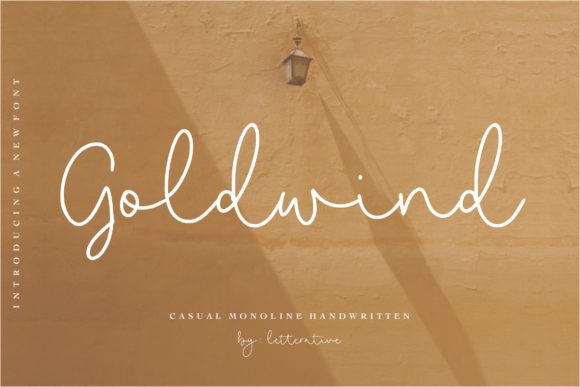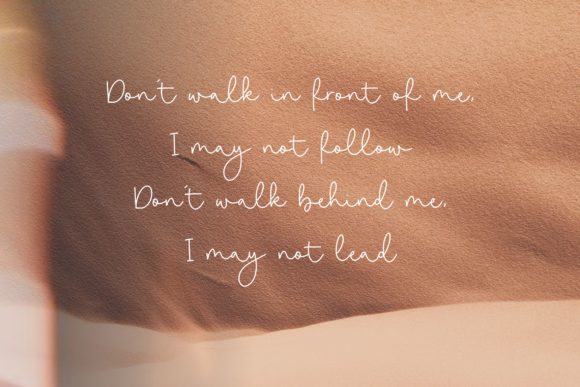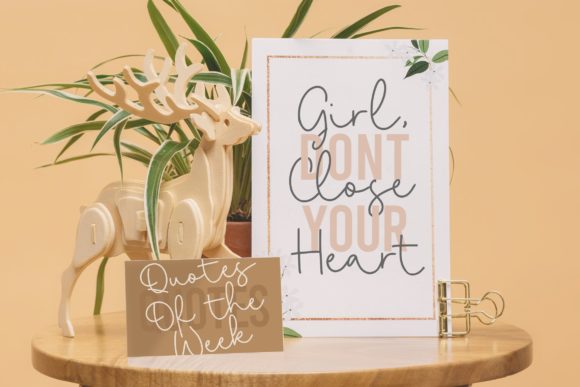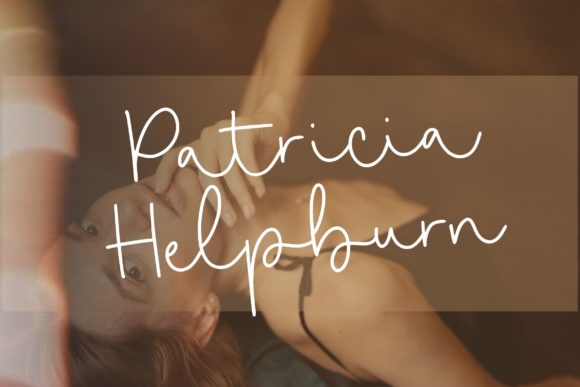
About Goldwind Font
Goldwind is a flowing and elegant handwritten font. Fall in love with its incredibly versatile style and use it to create gorgeous wedding invitations, beautiful stationary art, eye-catching social media posts, and much more!